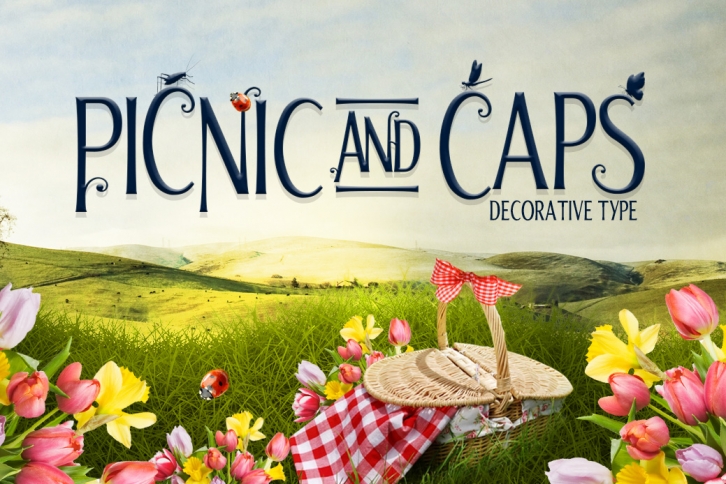
The Picnic and Caps font is a beautiful decorative font that is created for truly creative design.
Every letter in this beautiful font has been crafted with lots of attention to detail which ensures a unique experience. The Picnic and Caps font contains:
- Capital Letters
- Alternative Caps
- Decorative Glyphs